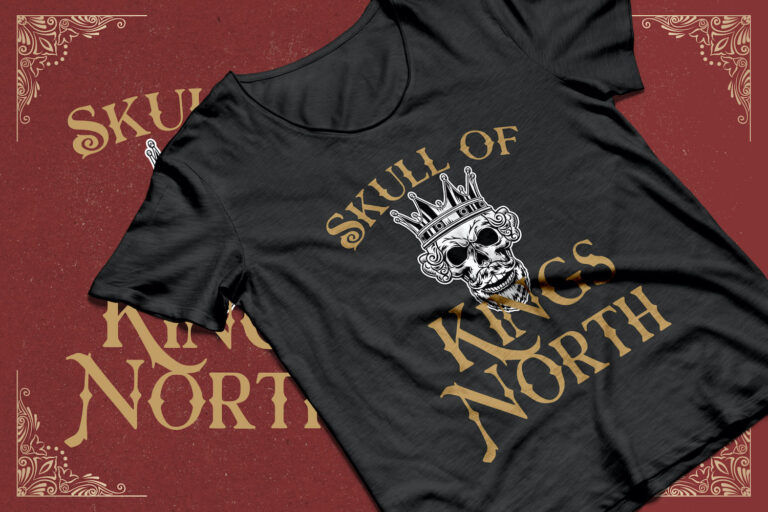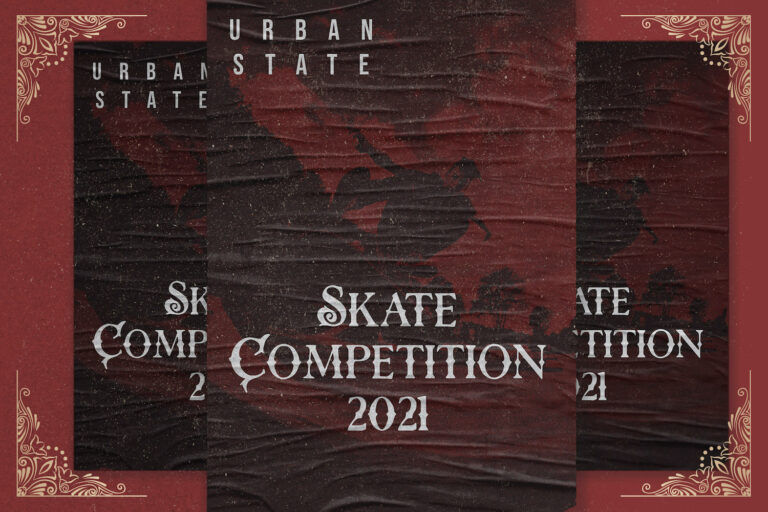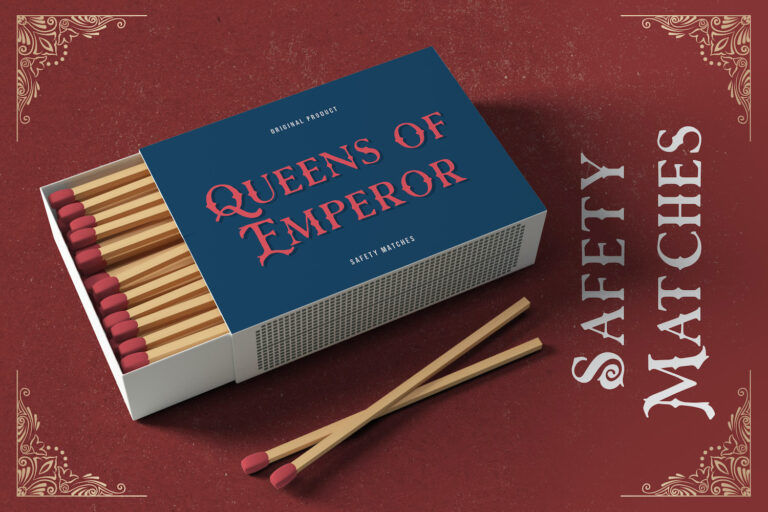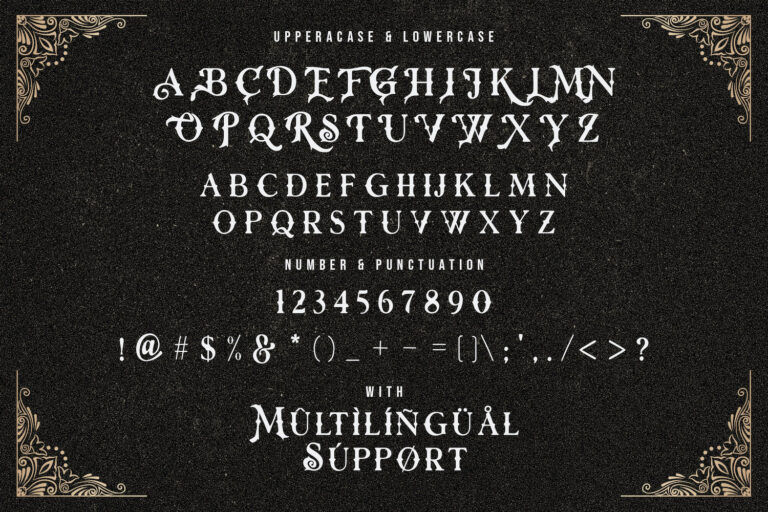
The Rose Knight Victorian Style Font blends elegance with edge, channeling a bold gothic presence wrapped in vintage flair. With ornate terminals, dramatic contrast, and intricate character detailing, this blackletter-inspired serif evokes the charm of classic Victorian type while adding a slightly rebellious undertone. It carries weight and gravitas, making it an ideal centerpiece for designs that aim to feel historical, mysterious, or richly dramatic.
Rose Knight excels in projects where visual storytelling is key—such as book covers, gothic apparel, tattoo studio branding, or themed packaging. Its decorative caps and stylized serifs create an immediate atmosphere of antiquity and intrigue, perfect for fantasy titles, horror zines, dark music events, or vintage product labels. Whether you want to reference the grit of medieval battles or the grace of classical flourishes, Rose Knight walks that line effortlessly. Use it when your typography needs to speak in a regal tone—laced with shadow and strength.